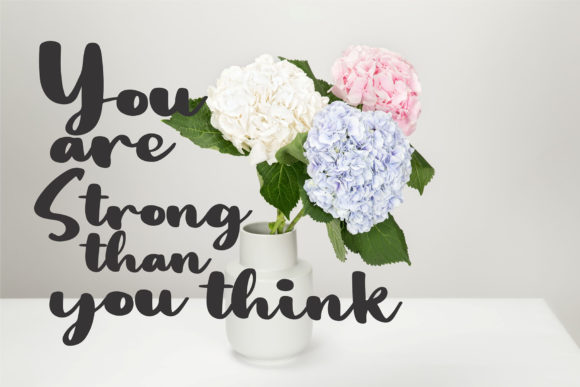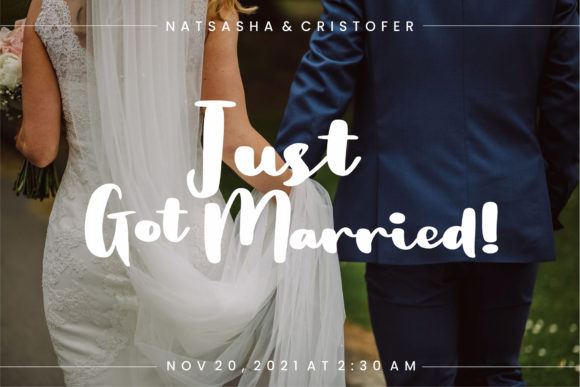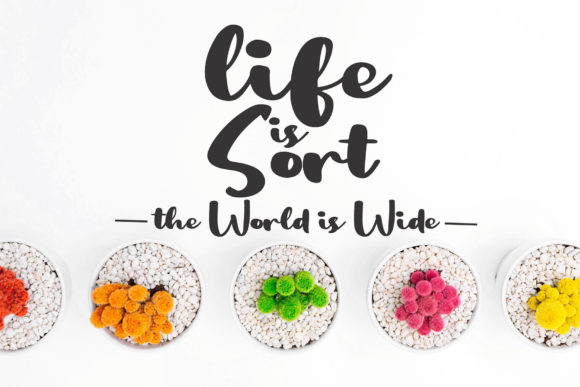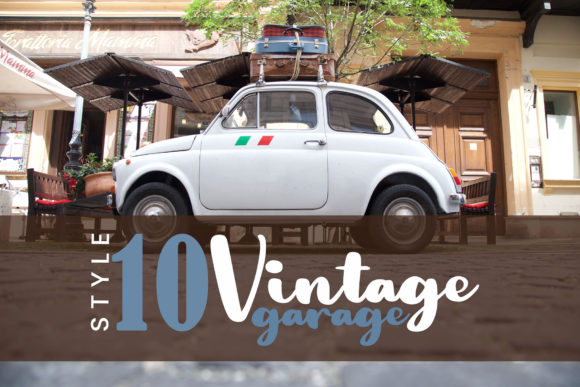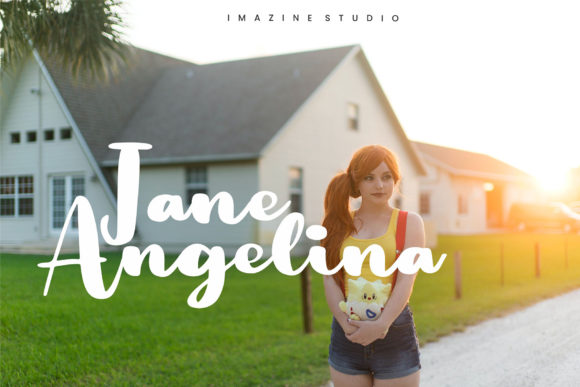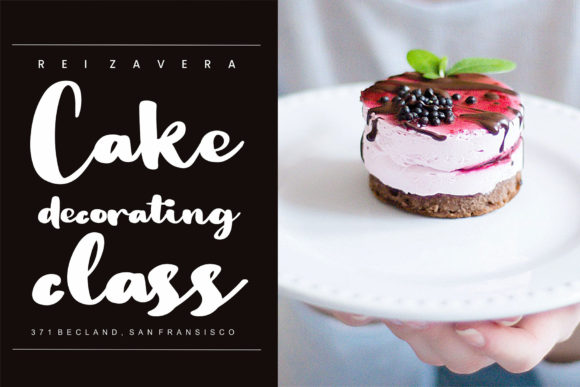
Introducing Alika Font: The Bold and Cute Handwritten Font for Your Creative Projects
Are you a designer, crafter, or DIY enthusiast looking for a font that can add a personal touch to your projects? Look no further than Alika Font, a bold and cute handwritten font that’s perfect for logos, branding, social media, and crafty DIY projects. In this article, we’ll explore the features and benefits of Alika Font, and show you how to make the most of this versatile and charming font.
What is Alika Font?
Alika Font is a modern handwritten font that’s designed to add a touch of personality to your projects. Its bold and cute style makes it perfect for a wide range of applications, from logos and branding to social media graphics and crafty DIY projects. Whether you’re a professional designer or a DIY enthusiast, Alika Font is a great choice for anyone looking to add a personal touch to their work.
Key Features of Alika Font
So, what makes Alika Font so special? Here are some of its key features:
- Bold and Cute Style: Alika Font has a bold and cute style that’s perfect for making a statement. Its chunky letters and playful vibe make it ideal for logos, branding, and social media graphics.
- Handwritten Look: Alika Font has a handwritten look that’s perfect for adding a personal touch to your projects. Its unique and irregular letterforms give it a friendly and approachable feel.
- Versatile: Alika Font is a versatile font that can be used for a wide range of projects, from logos and branding to social media graphics and crafty DIY projects.
- Easy to Read: Despite its bold style, Alika Font is easy to read, making it perfect for use in body text as well as headlines.
How to Use Alika Font
So, how can you use Alika Font in your projects? Here are some ideas to get you started:
- Logos and Branding: Use Alika Font to create a bold and memorable logo for your business or brand. Its unique style makes it perfect for standing out from the crowd.
- Social Media Graphics: Use Alika Font to create eye-catching social media graphics that showcase your personality and style.
- Crafty DIY Projects: Use Alika Font to add a personal touch to your crafty DIY projects, such as handmade cards, gift tags, and scrapbook pages.
- Invitations and Announcements: Use Alika Font to create bold and eye-catching invitations and announcements for special events.
Tips for Getting the Most out of Alika Font
Here are some tips for getting the most out of Alika Font:
- Experiment with Colors: Alika Font looks great in a wide range of colors, so don’t be afraid to experiment and find the perfect color scheme for your project.
- Pair it with Other Fonts: Alika Font pairs well with other fonts, so try combining it with a sans-serif font for a bold and modern look.
- Use it for Headlines and Titles: Alika Font is perfect for use in headlines and titles, where its bold style can really make an impact.
- Don’t be Afraid to Get Creative: Alika Font is a versatile font that can be used in a wide range of projects, so don’t be afraid to get creative and try new things.
In conclusion, Alika Font is a bold and cute handwritten font that’s perfect for designers, crafters, and DIY enthusiasts. Its unique style and versatile nature make it ideal for a wide range of projects, from logos and branding to social media graphics and crafty DIY projects. With its easy-to-read design and bold style, Alika Font is a great choice for anyone looking to add a personal touch to their work.